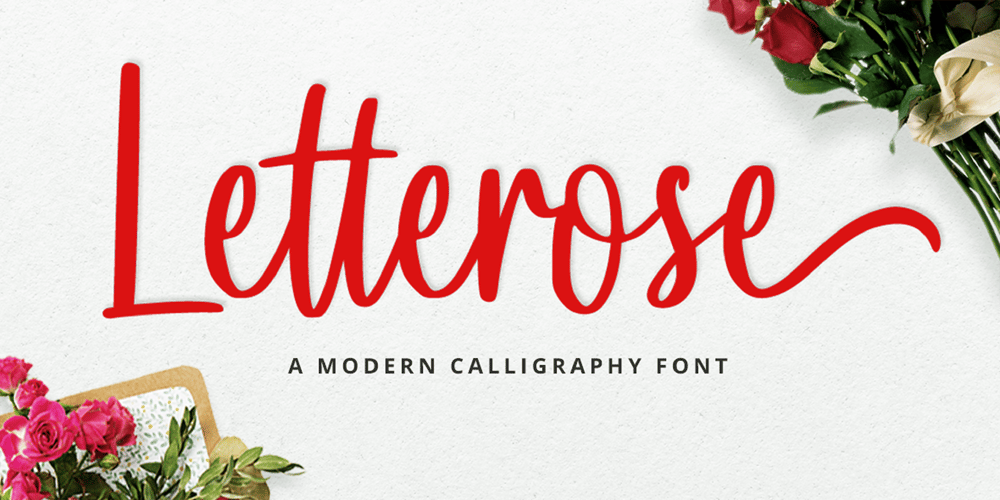
Letterose Font Family was designed by Heri Imanudin and published by Krafted. Letterose contains 1 styles and family package options. Introducing Letterose – A Calligraphy FontLetterose Calligraphy font is designed and carefully handcrafted elegantly and gracefully for your website, for your social media branding, Pinterest banners, printed invitations, and more!Letterose Calligraphy font will never go wrong for your audience, clients, guests or anyone around you!What you’ll get: Multilingual & Ligature Support Full sets of Punctuation and Numerals Compatible with: Adobe Suite Microsoft Office KeyNote Pages Software Requirements: The fonts that you’ll receive in the pack are widely supported by most software. In order to get the full functionality of the selection of standard ligatures (custom created letters) in the script font, any software that can read OpenType fonts will work. We hope you enjoy this font and that it makes your branding sparkle! Feel free to reach out to us if you’d like more information or if you have any concerns.